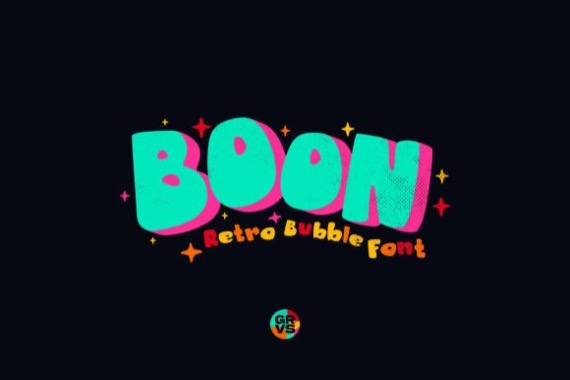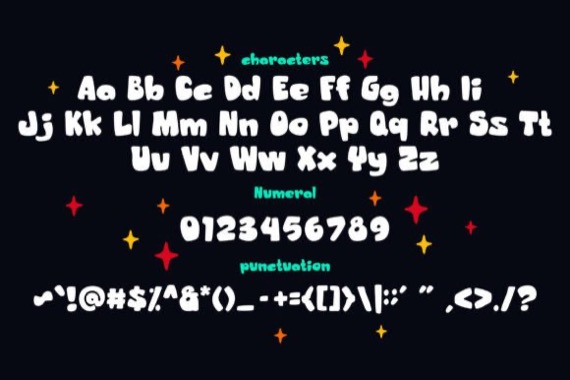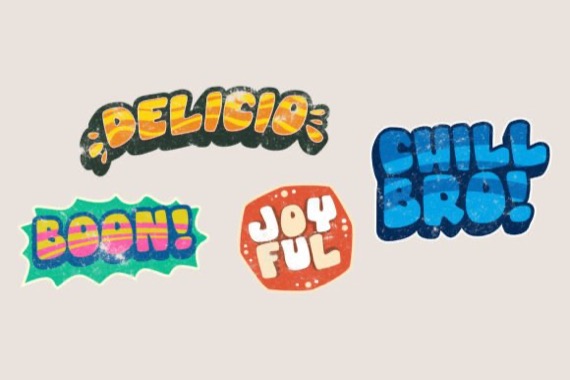
GRVS Boon is a classy and Retro Bubble Display Font that was created and shared by Febryan.Satria1, it is our new item that is suitable for your team logo, or community logo with a Funny, Kids, and Joy theme.
Grvs Boon Display Font
Designer, Publisher: Febryan.Satria1